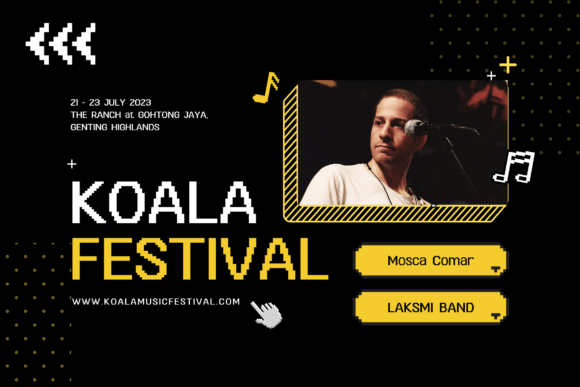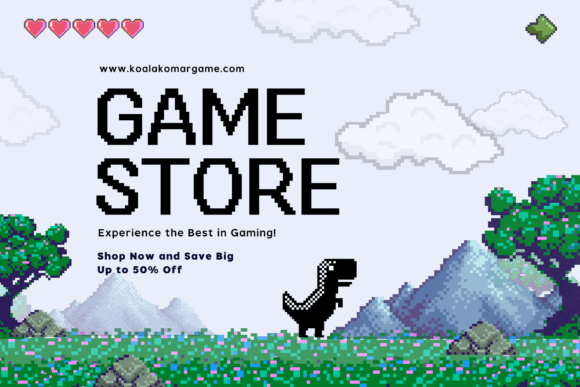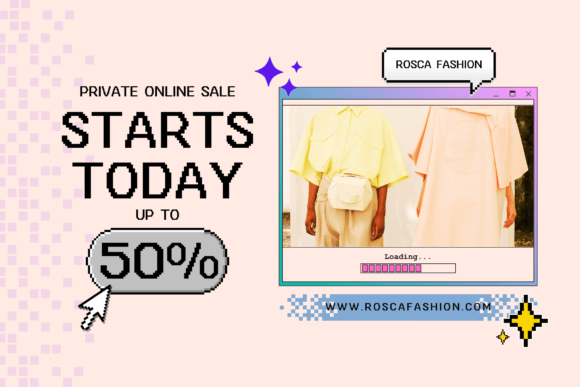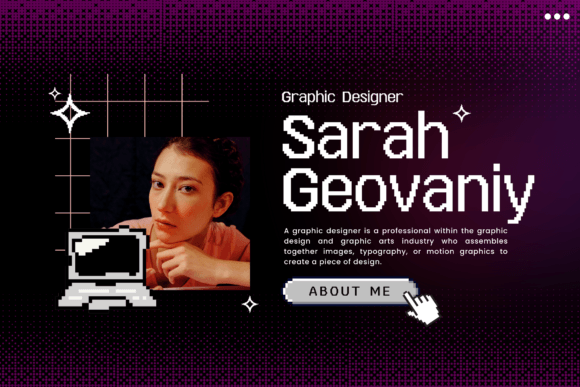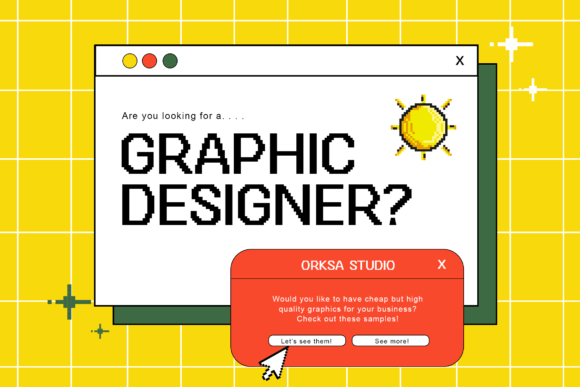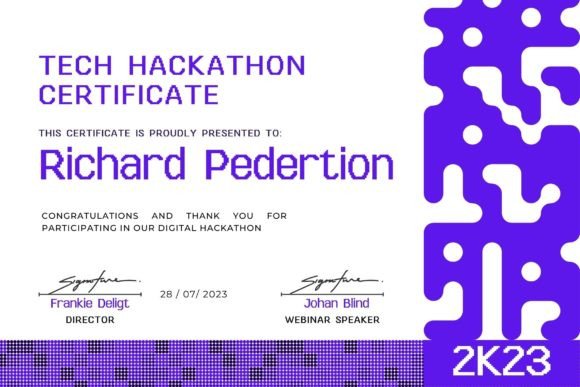
Unlock the Nostalgic Pixelated World with Bugvirus Pixel Font
Are you a designer, gamer, or crafty enthusiast looking to add a touch of retro charm to your projects? Look no further than the Bugvirus font, a pixel-style font that captures the essence of retro gaming and digital technology. In this article, we’ll dive into the world of Bugvirus and explore its features, benefits, and uses.
The Nostalgia of Pixelated Fonts
Pixelated fonts have a way of transporting us back to the good old days of classic video games and early digital technology. The Bugvirus font is no exception, with its carefully crafted pixelated design that evokes a sense of nostalgia and brings back memories of childhood gaming marathons. Whether you’re a seasoned gamer or a design enthusiast, Bugvirus is sure to strike a chord.
What is Bugvirus Font?
Bugvirus is a pixel-style font designed to deliver an authentic pixelated experience. Its unique design makes it perfect for applications in the gaming industry, digital media, and technology-focused projects. With Bugvirus, you can add a touch of retro charm to your project and make it stand out from the crowd.
Key Features of Bugvirus Font
- Pixelated Design: Bugvirus features a meticulously crafted pixelated design that captures the essence of retro gaming and digital technology.
- Nostalgic Feel: The font’s pixelated design evokes a sense of nostalgia and brings back memories of classic video games.
- Authentic Experience: Bugvirus delivers an authentic pixelated experience, making it perfect for applications in the gaming industry, digital media, and technology-focused projects.
- Retro Charm: The font’s retro charm makes it an excellent choice for startups and designers looking to incorporate a touch of nostalgia into their projects.
Benefits of Using Bugvirus Font
So, why choose Bugvirus font for your project? Here are just a few benefits of using this amazing pixel-style font:
- Unique Design: Bugvirus features a unique pixelated design that sets it apart from other fonts.
- Easily Customizable: Bugvirus is easily customizable, allowing you to adjust the font to suit your project’s needs.
Use Cases for Bugvirus Font
Bugvirus font is versatile and can be used in various projects, including:
- Gaming Industry: Use Bugvirus to create retro-style game titles, menus, and UI elements.
- Digital Media: Add a touch of nostalgia to your digital media projects, such as video intros, animations, and motion graphics.
- Technology-Focused Projects: Use Bugvirus to create a retro-style look for your technology-focused projects, such as robotics, coding, and software development.
- Branding and Marketing: Incorporate Bugvirus into your branding and marketing materials to create a unique and memorable visual identity.
In conclusion, Bugvirus font is a unique and versatile pixel-style font that captures the essence of retro gaming and digital technology. With its nostalgic feel, authentic pixelated experience, and retro charm, Bugvirus is perfect for designers, gamers, and crafty enthusiasts looking to add a touch of nostalgia to their projects. Whether you’re working on a gaming project, digital media, or technology-focused project, Bugvirus font is an excellent choice.